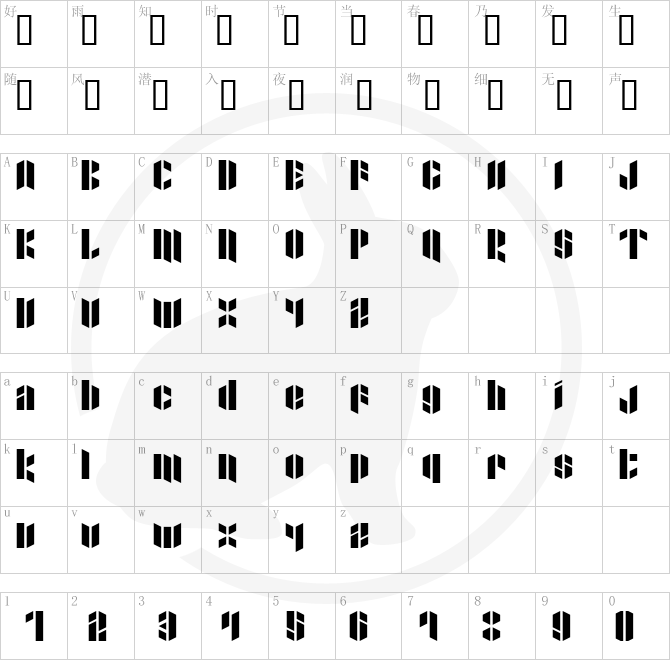
- Font Name:Xacto Blade
Xacto-Blade-copy-2-.ttf is a very beautiful artistic font, Xacto-Blade-copy-2-.ttf is widely used in the design and printing of various books and pictures,Xacto-Blade-copy-2-.ttf has a strong visual impact,Xacto-Blade-copy-2-.ttf is a commonly used font in newspapers, magazines and books, and is used in posters, e-commerce Poster design, store design, logo design, font design and other fields.Xacto-Blade-copy-2-.